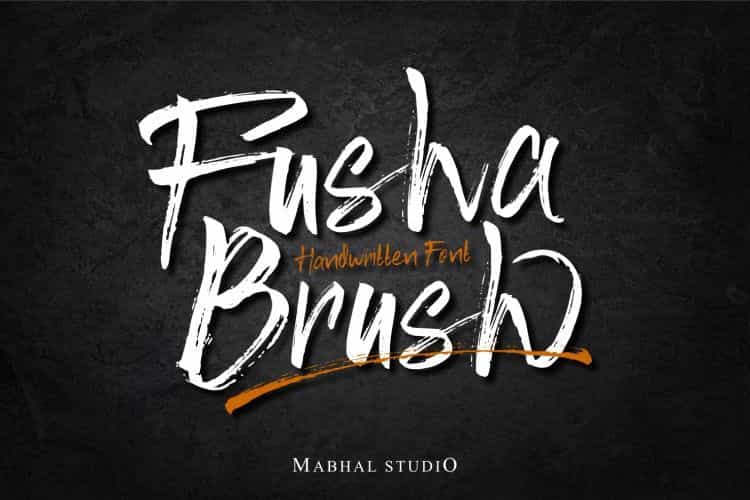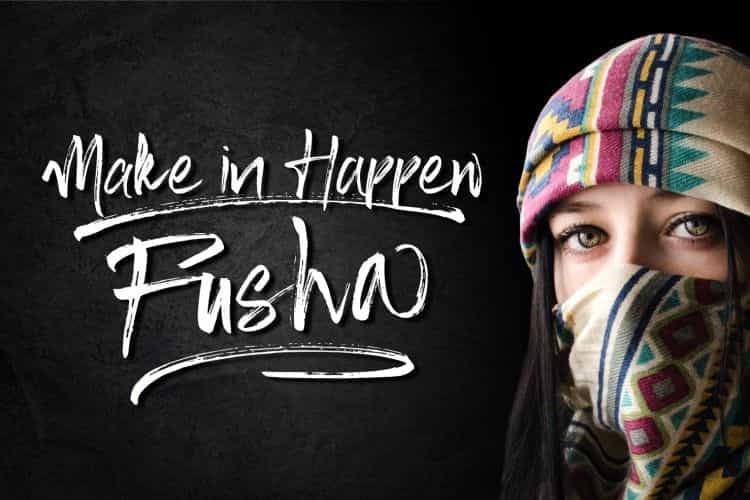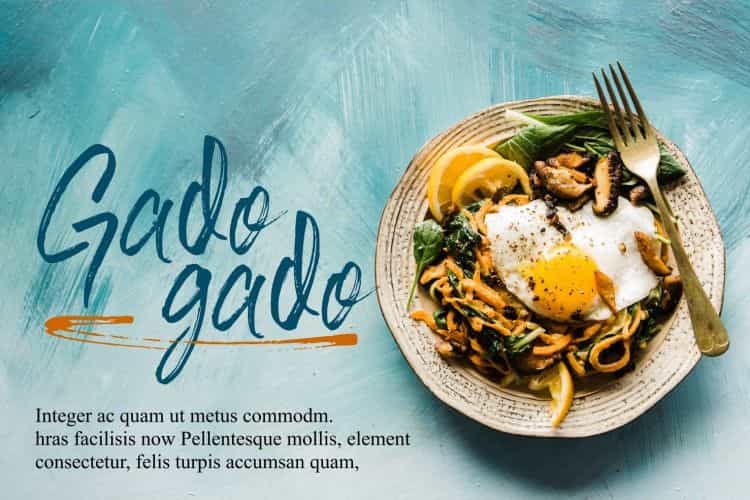
Discover Fusha Font, part of the Brush collection—a versatile and unique font perfect for adding a personal touch to your projects. Download it for free and enjoy crafting designs with style, from invitations to social media posts. This font is available exclusively for personal use, giving you the freedom to create without limits. Unlock your creativity with Fusha Font today!
Fusha is a special handwritten brush font. Its very distinct flow and style is the reason it can be used for prints, logos, signatures, quotes, badges, labels packaging design or simply to add a fancy text on a photo. Fusha has the upper and lowercase Basic Characters, Numbers, Marks and Punctuation.